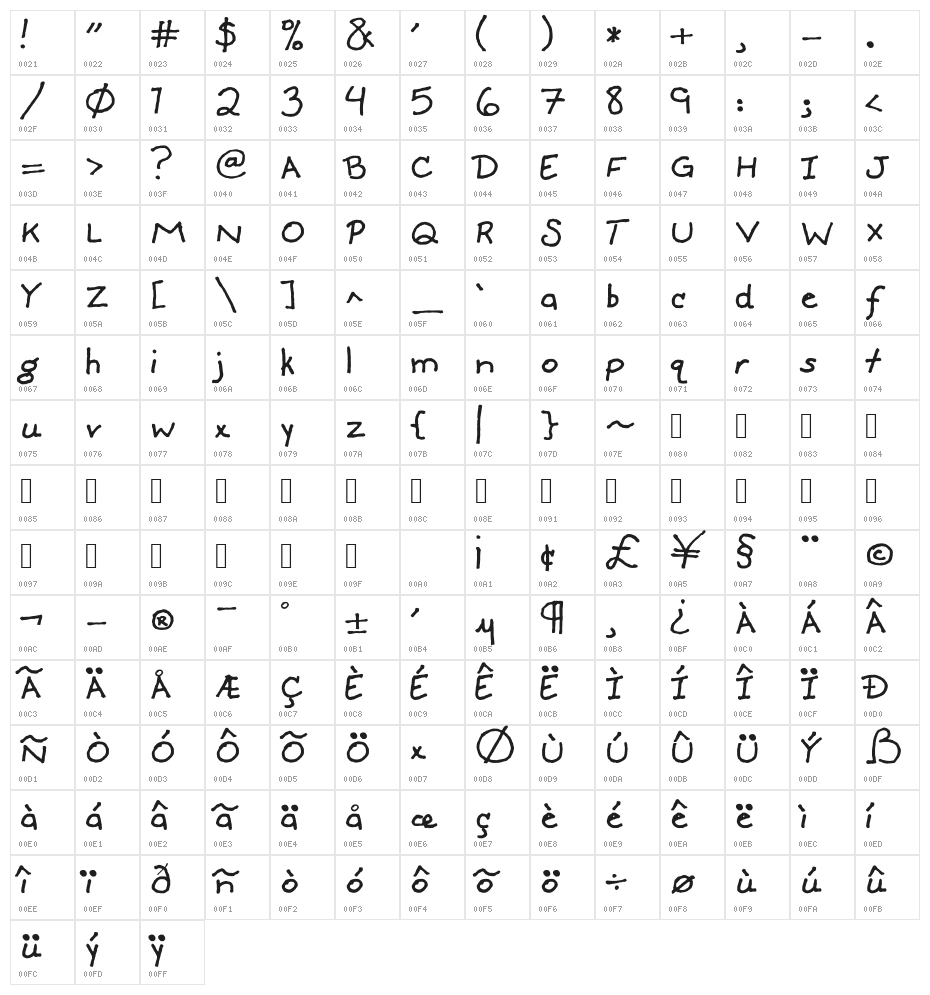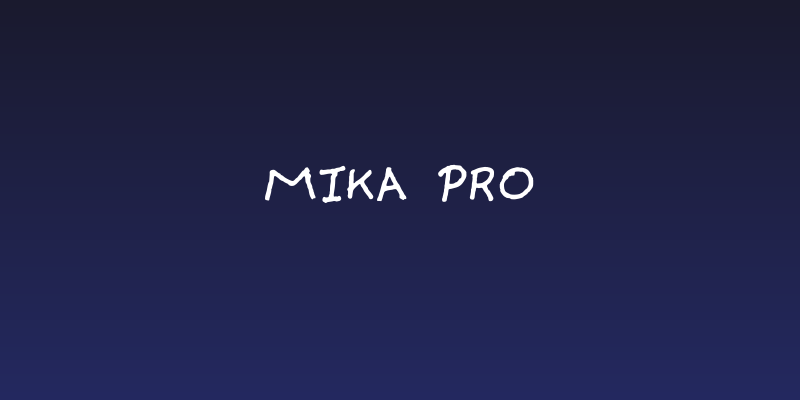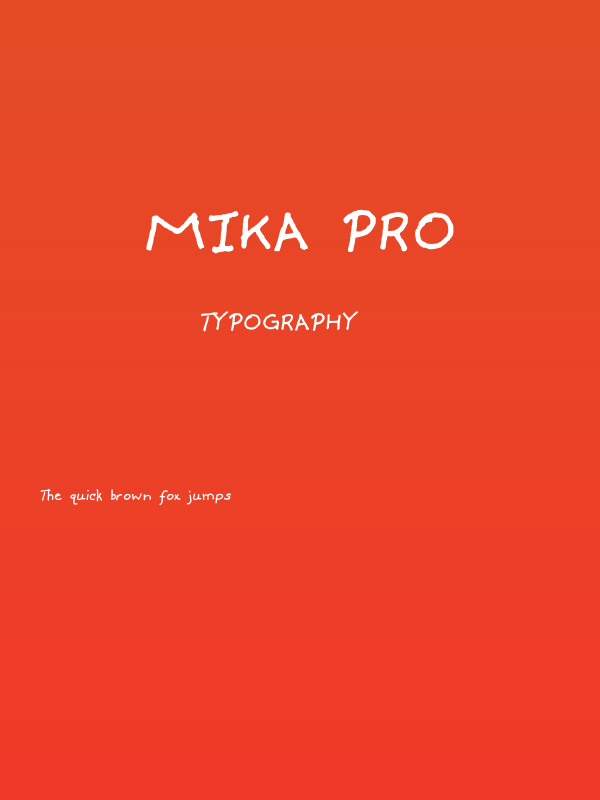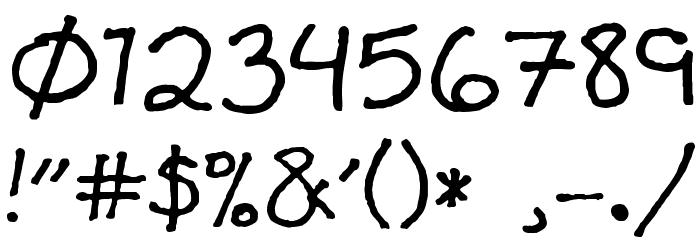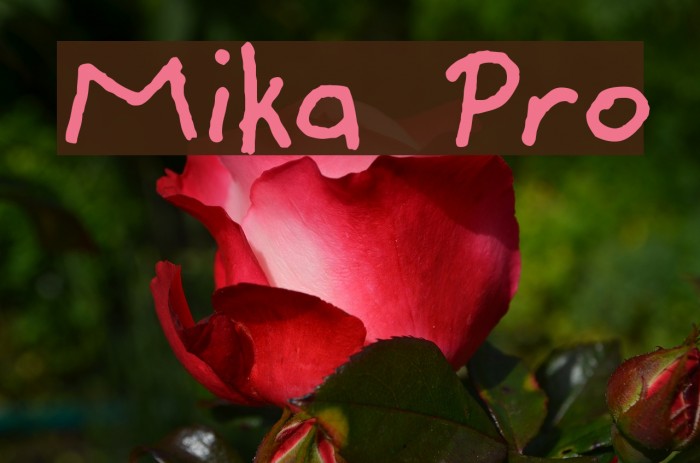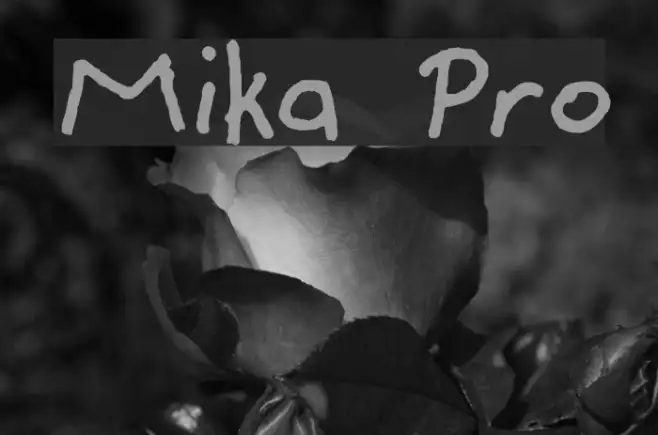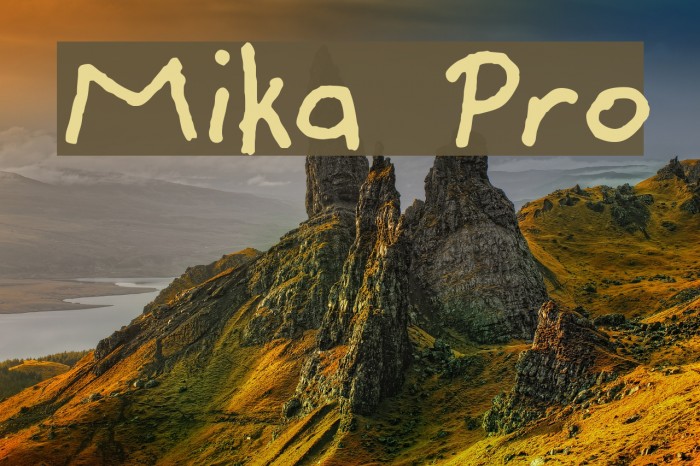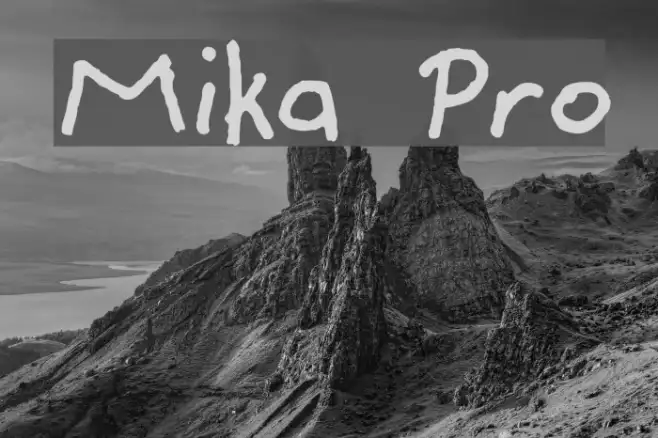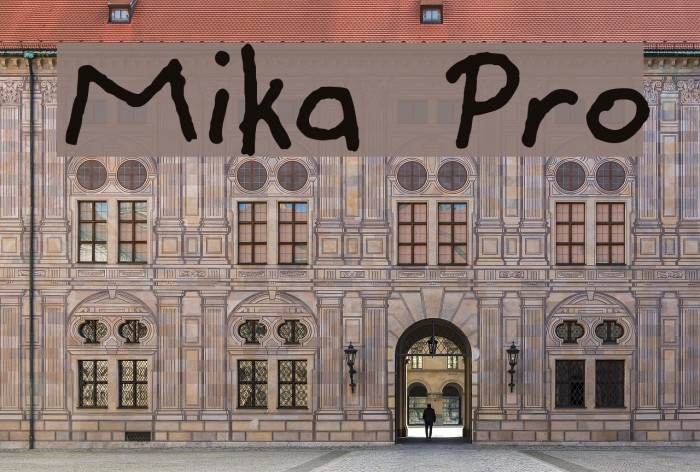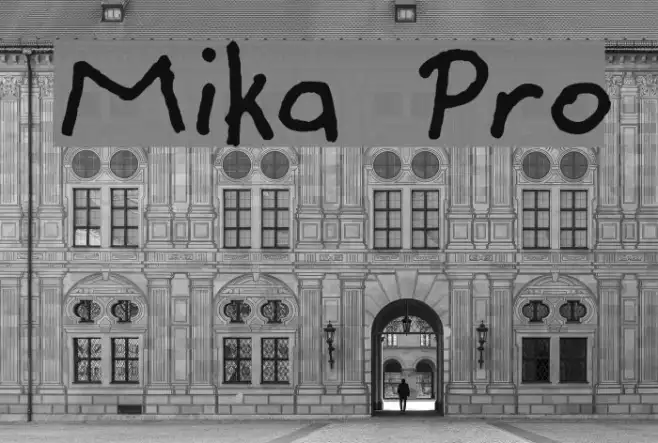
Mika Pro Font
Mika Pro Description
This font exudes a playful and informal style, characterized by its hand-drawn appearance. The letters have an uneven baseline, adding to its casual charm. The strokes are moderately thick, with a consistent width throughout, giving it a bold presence. The characters are slightly irregular, enhancing the handwritten feel. This font includes a full set of uppercase and lowercase letters, numerals, and a variety of special characters, making it versatile for different uses. Its unique style is suitable for projects that require a personal touch or a relaxed vibe.
| Proposed Projects | Ideal for greeting cards, children's books, casual branding, and social media graphics. |